This guide to tattoo fonts collects clean scripts for names, readable blackletter, and vintage display that hold up on skin. You’ll also get quick size/spacing tests so your quote stays legible for years.
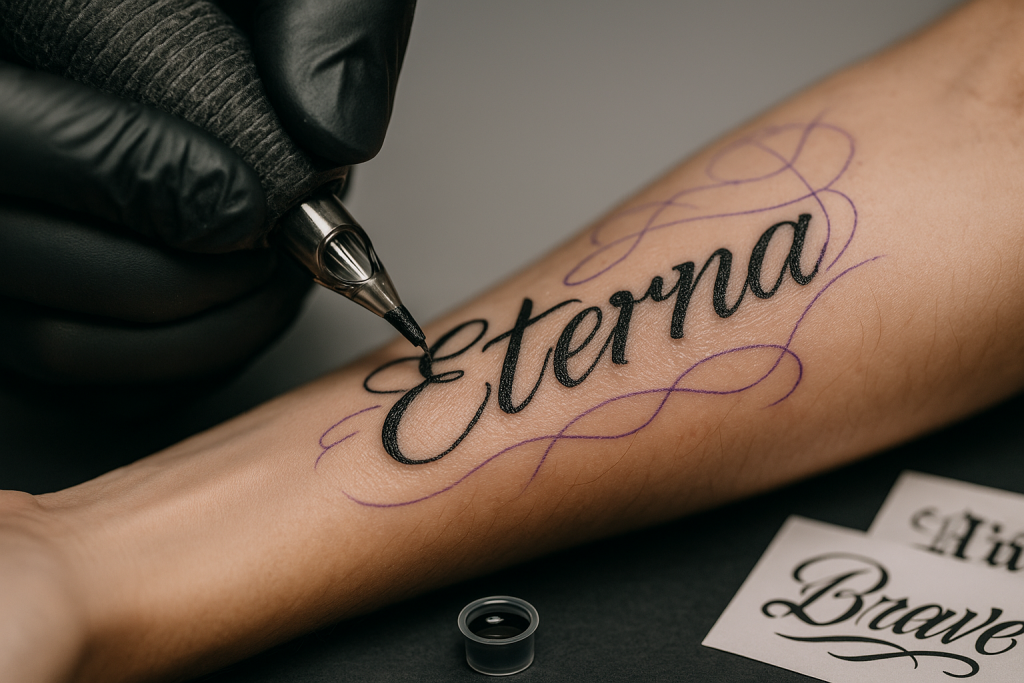
Editor’s top picks – Tattoo Fonts
Name/Script (clean)
Smooth, connected scripts with sturdy strokes for names and dates; avoid hairline swashes.
Blackletter
Readable textura/fraktur with open counters; keep tracking looser and swashes minimal.
Old School
Classic flash vibe: bold outlines, simple shapes and high contrast for long-term clarity.
Fine-line
Delicate monoline for micro text; choose versions with larger x-height and open apertures.
Quote/Lettering
Versatile serif/sans combos for poems and phrases; pair bold keywords with simple helpers.
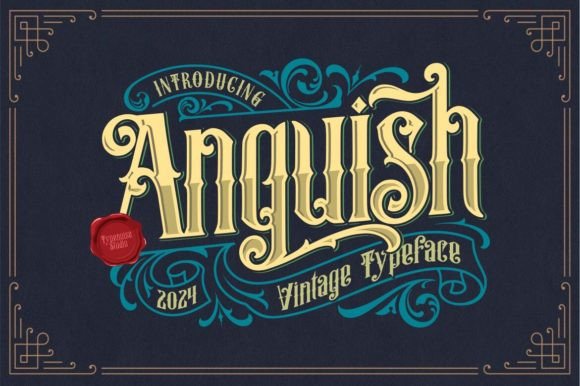
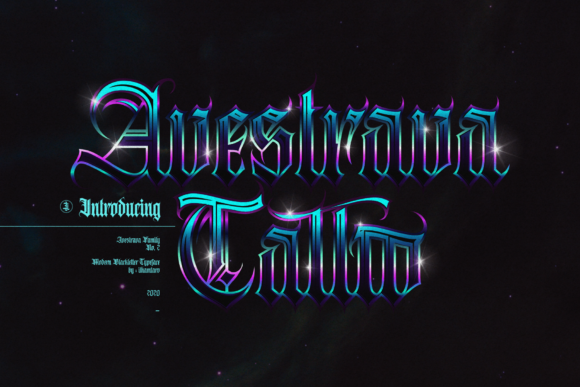
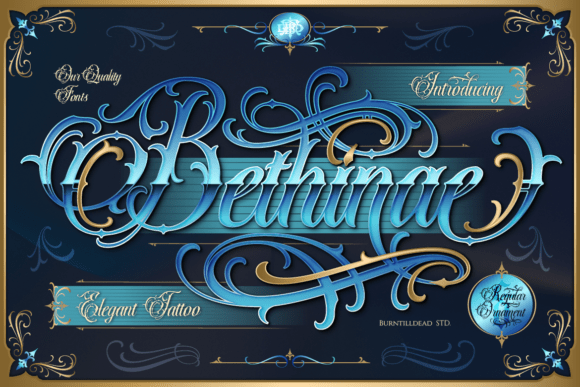
How to choose a tattoo font
- Legibility at final size. Print at the exact size for the placement; aim for at least 5–7 mm x-height for small areas. Avoid ultra-thin hairlines.
- Stroke weight that lasts. Prefer solid stems (≈0.5–1.0 mm or thicker depending on placement). Very fine lines can blur over time.
- Open counters & apertures. Choose faces with large a/e/s openings and less cluttered loops.
- Kerning & tracking. Slightly looser spacing improves long-term readability, especially in blackletter and all caps.
- Swashes & ligatures. Use sparingly. Keep descenders clear so letters don’t merge into shapes after healing.
- Language support. Check accents (á, ñ, ç), numerals, ampersands and punctuation for your quote.
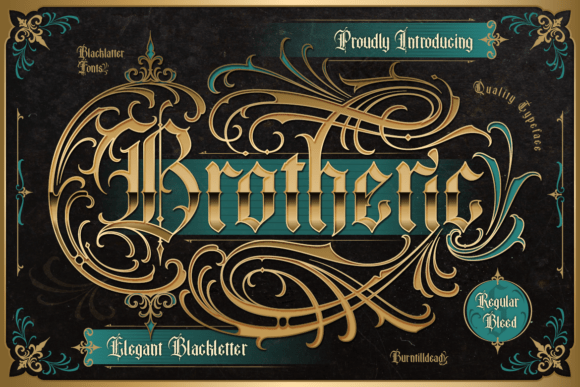
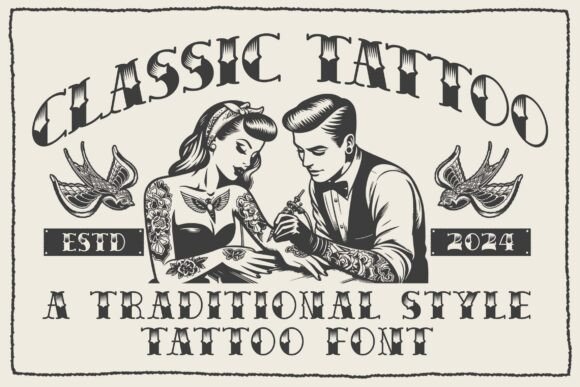
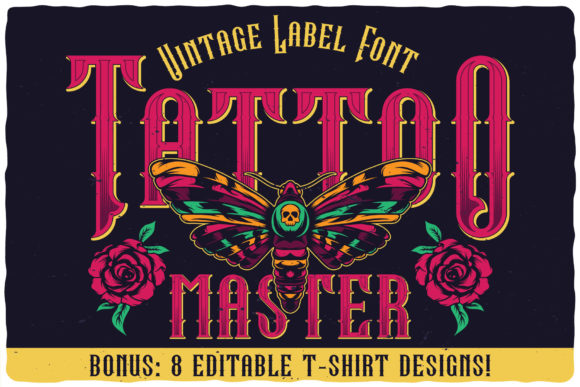
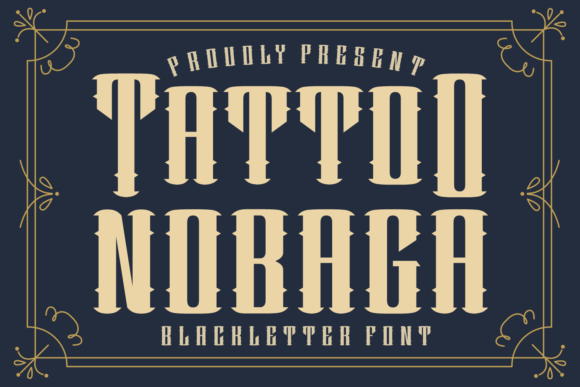
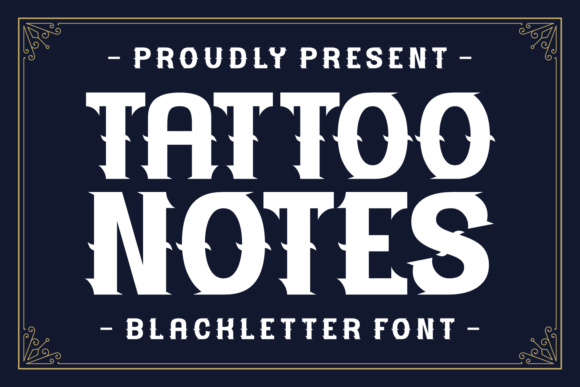
From sketch to stencil: handoff checklist
- Convert text to outlines. Send SVG/PDF or a 300–600 dpi PNG at 100% final size.
- Include spacing notes. Provide tracking value and any custom kern pairs (e.g., “AV −40”).
- Two versions. Solid black on white, and inverted white on black for easy viewing.
- No hairline effects. Expand strokes; avoid faux bold/italic or raster effects.
- Placement mock. Simple photo mockup at scale helps judge size and readability.
Font pairing & layout ideas
- Script name + Small caps helper – Name in clean script, date/location in small caps sans.
- Blackletter word + Sans caption – Keep the word bold; add a tiny geometric sans line below.
- Old school banner – Vintage serif in a ribbon; keep curvature gentle and spacing even.
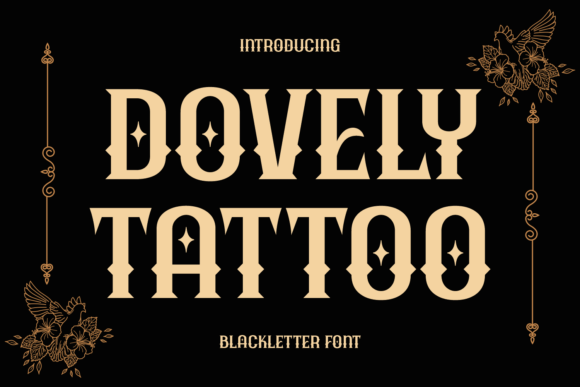
FAQ
What sizes stay readable?
For small placements, print tests at 5–7 mm x-height and choose tattoo fonts with open shapes and sturdy strokes. Very thin lines may blur as the tattoo ages.
All caps or mixed case?
All-caps blackletter looks dramatic but is harder to read; use title case or small caps for quotes. Scripts rarely work in all caps – prefer capitalized first letters only.
Should I use ligatures/swashes?
Use them sparingly for character. Prioritize clarity: long swashes and dense ligatures can merge after healing.
How do I prepare a file for my artist?
Outline the font, export SVG/PDF or 300–600 dpi PNG at final size, and include spacing notes. Your artist may still adjust for placement and skin.